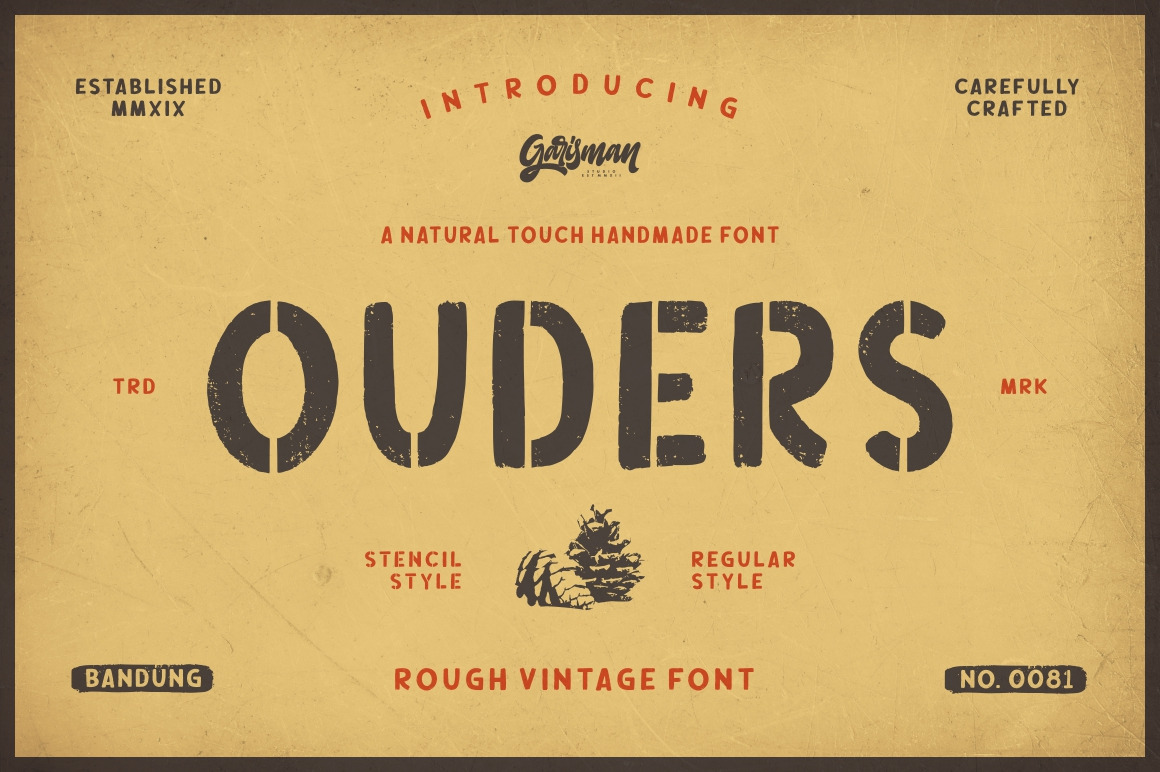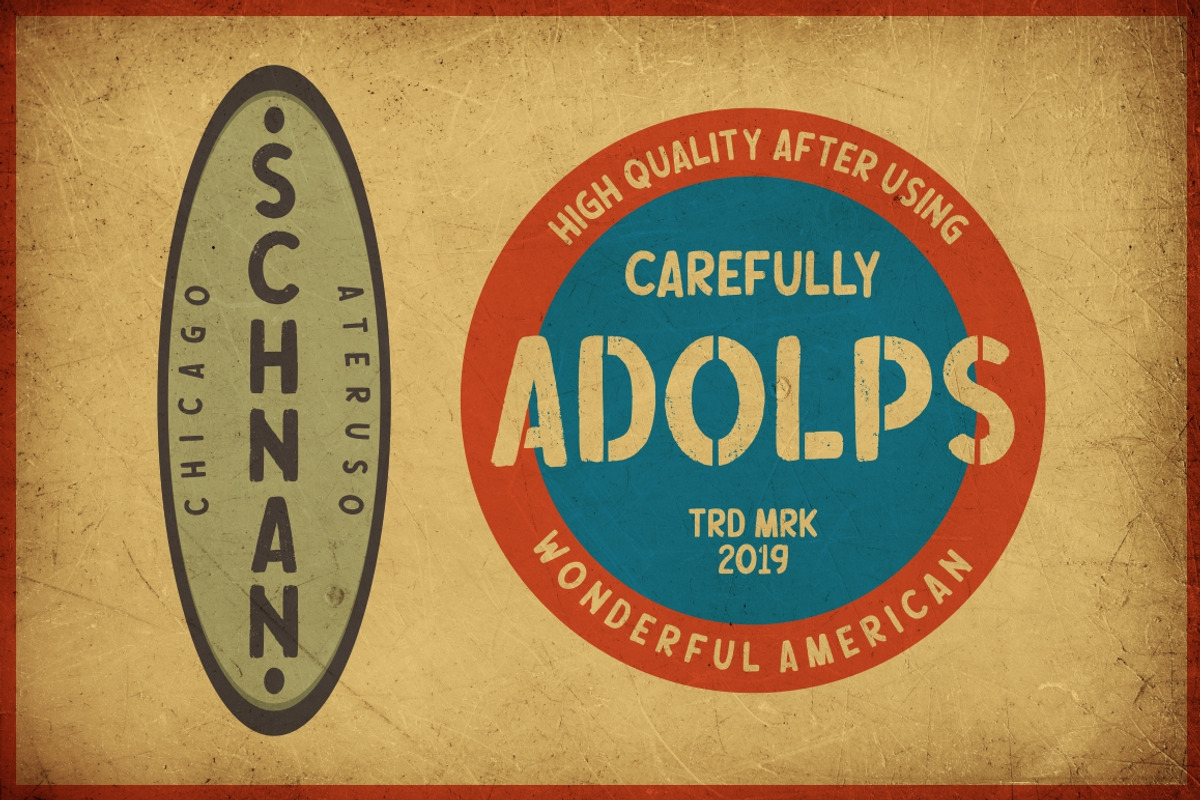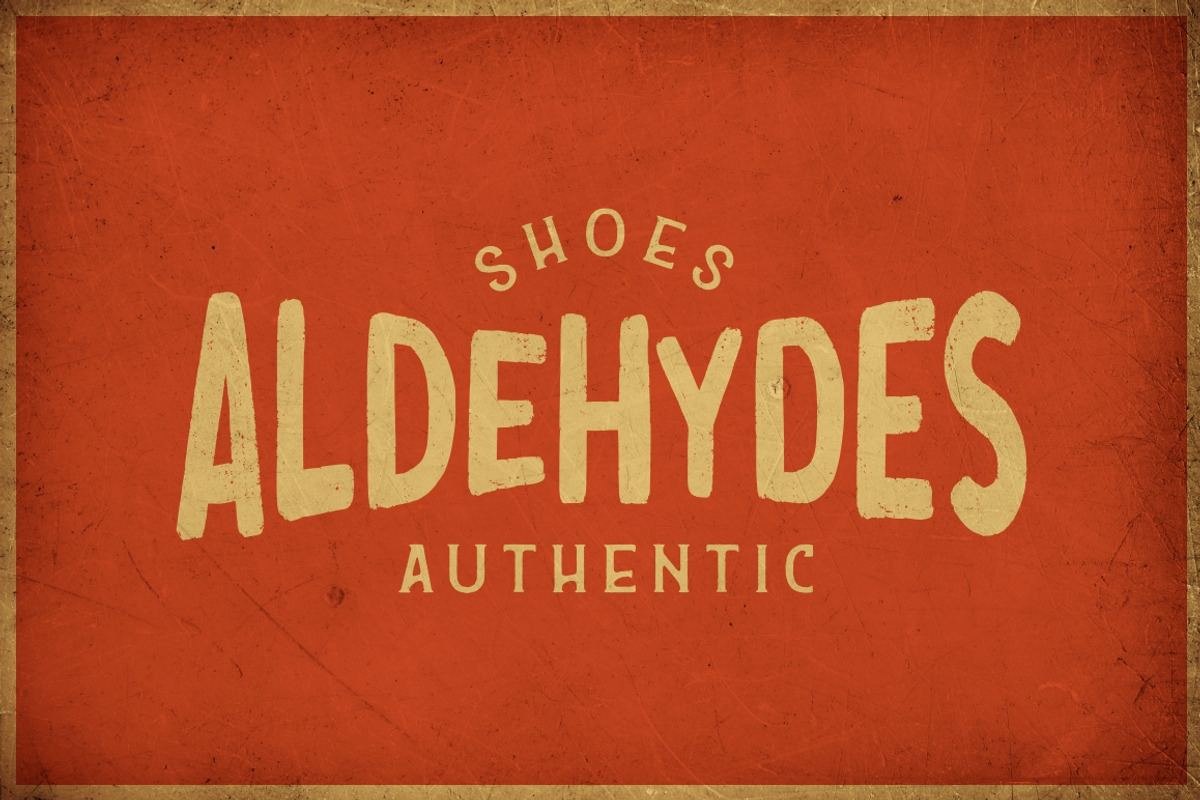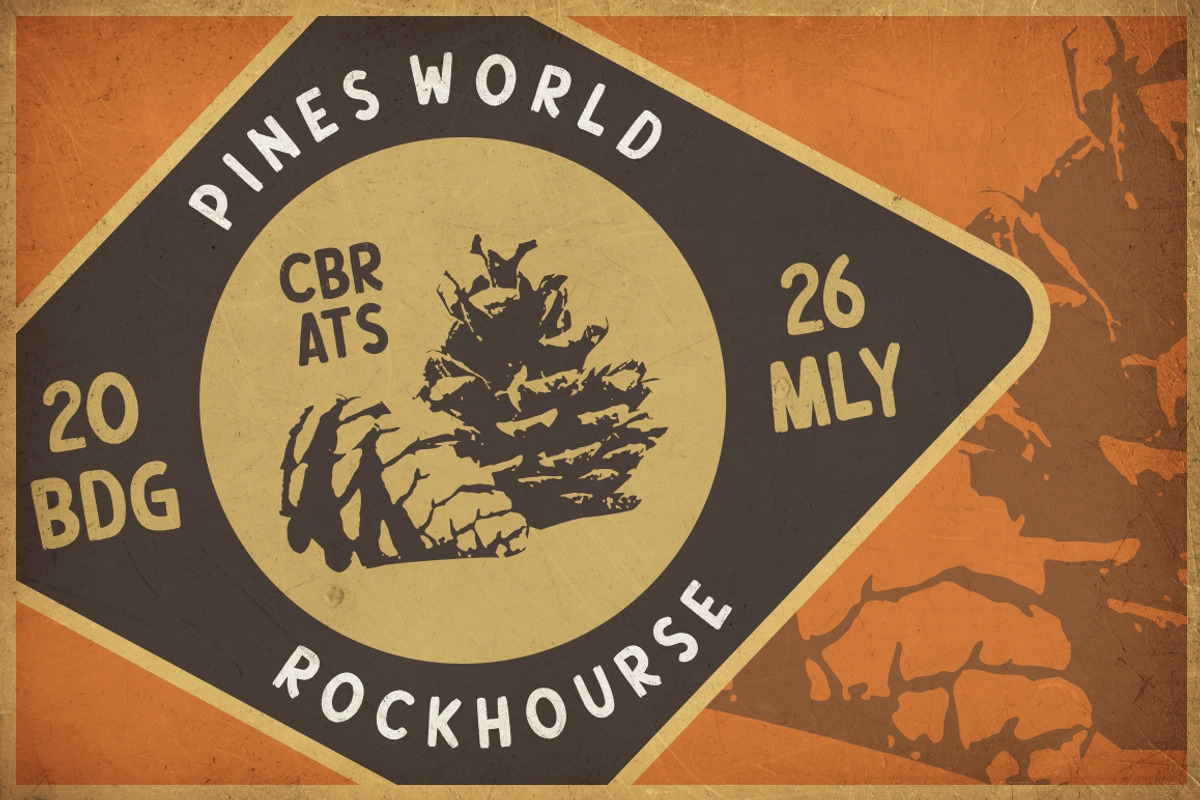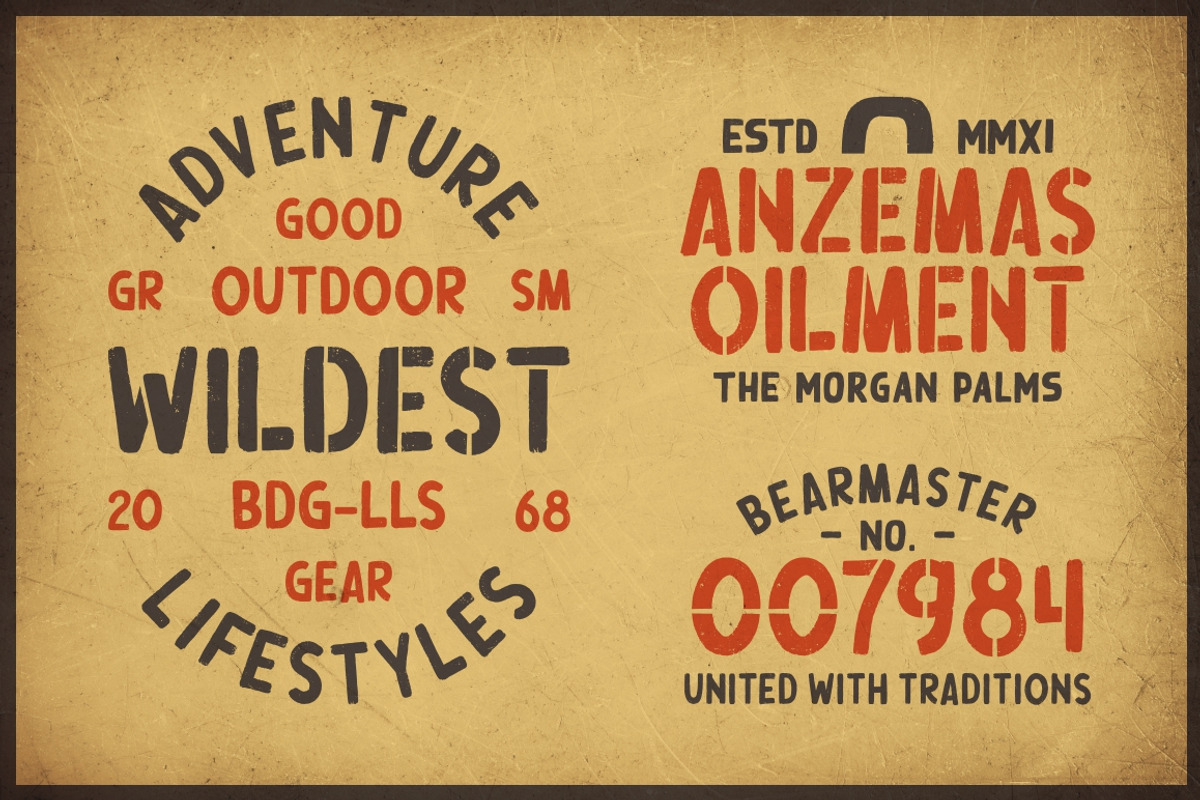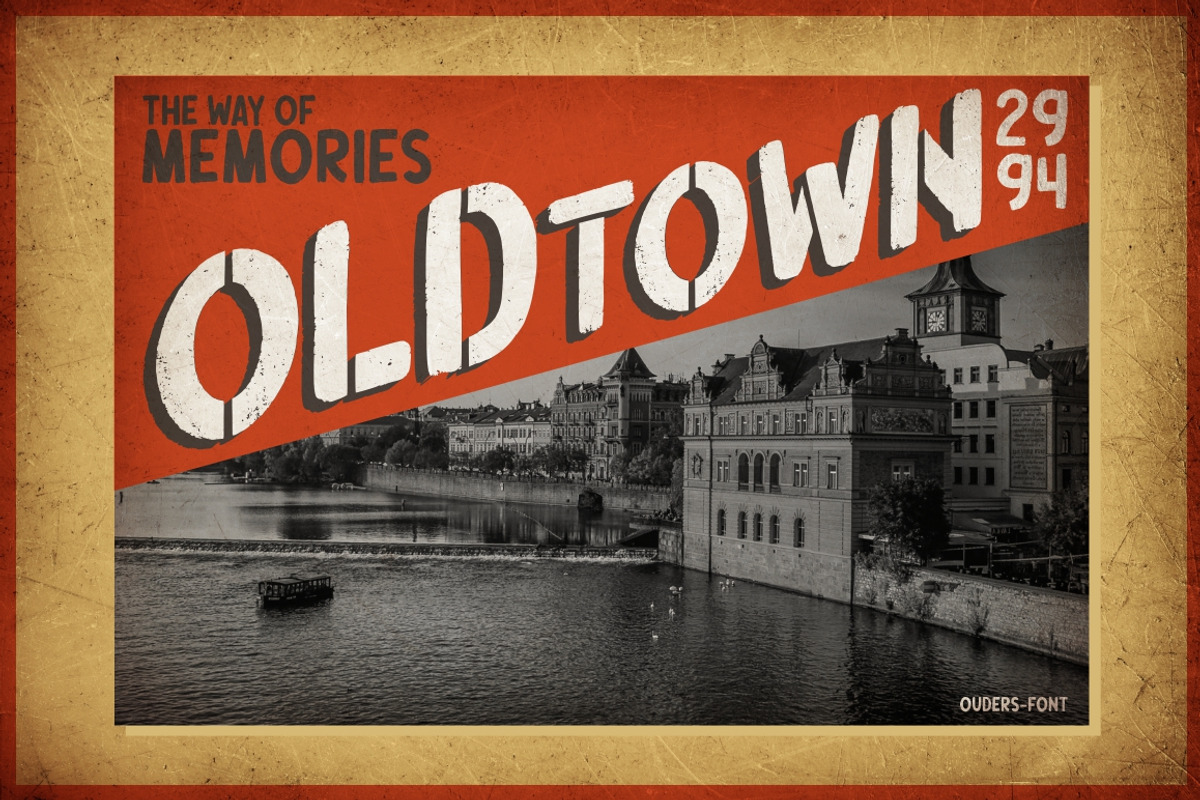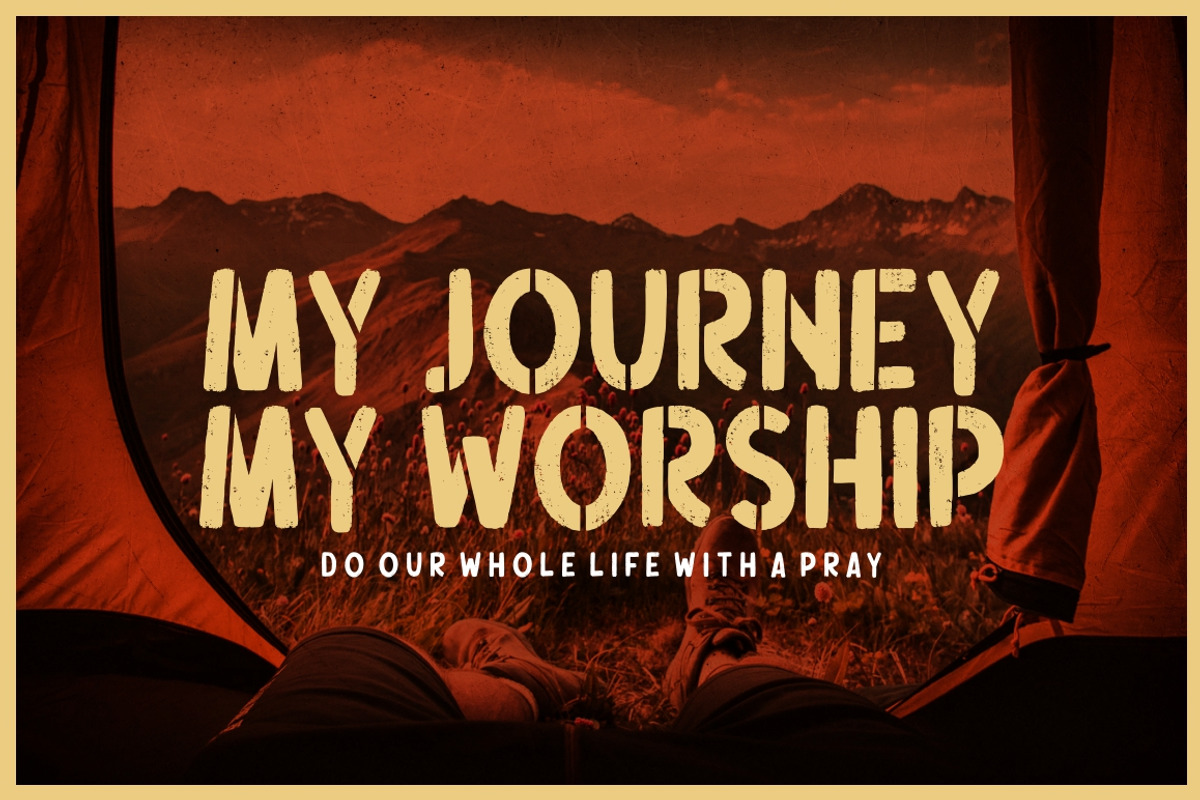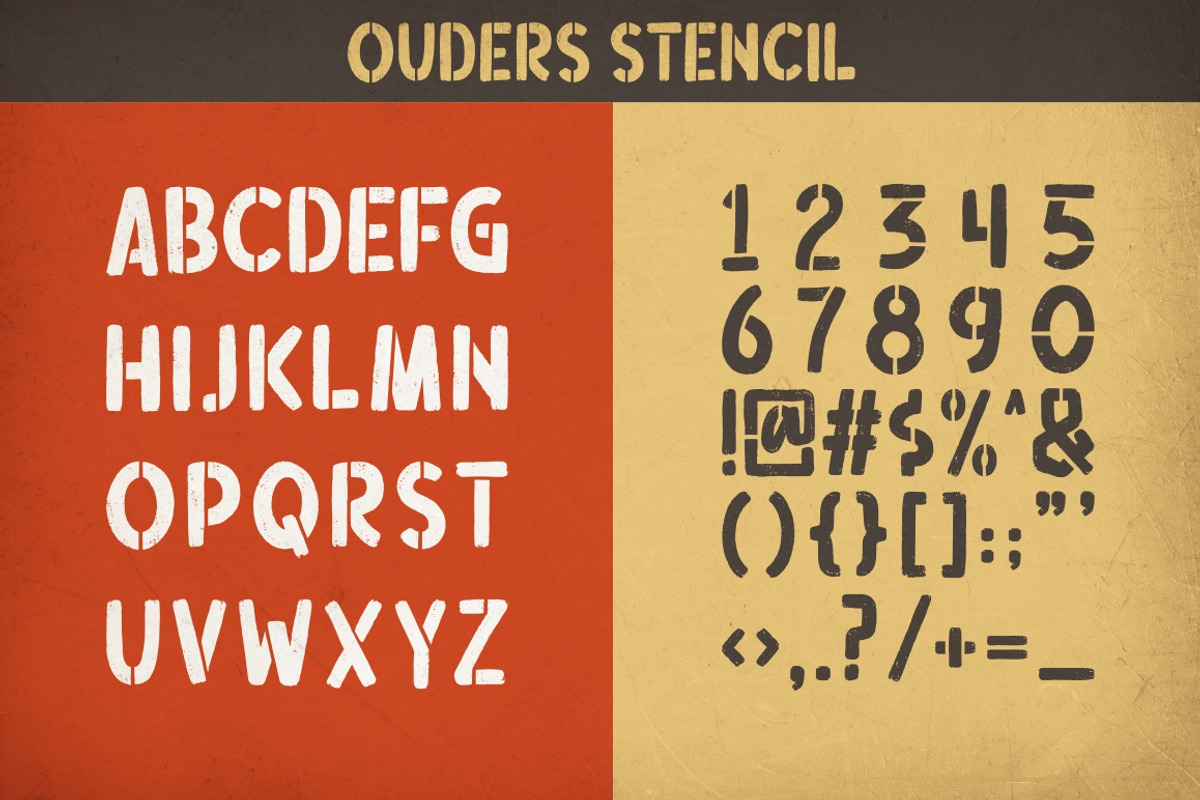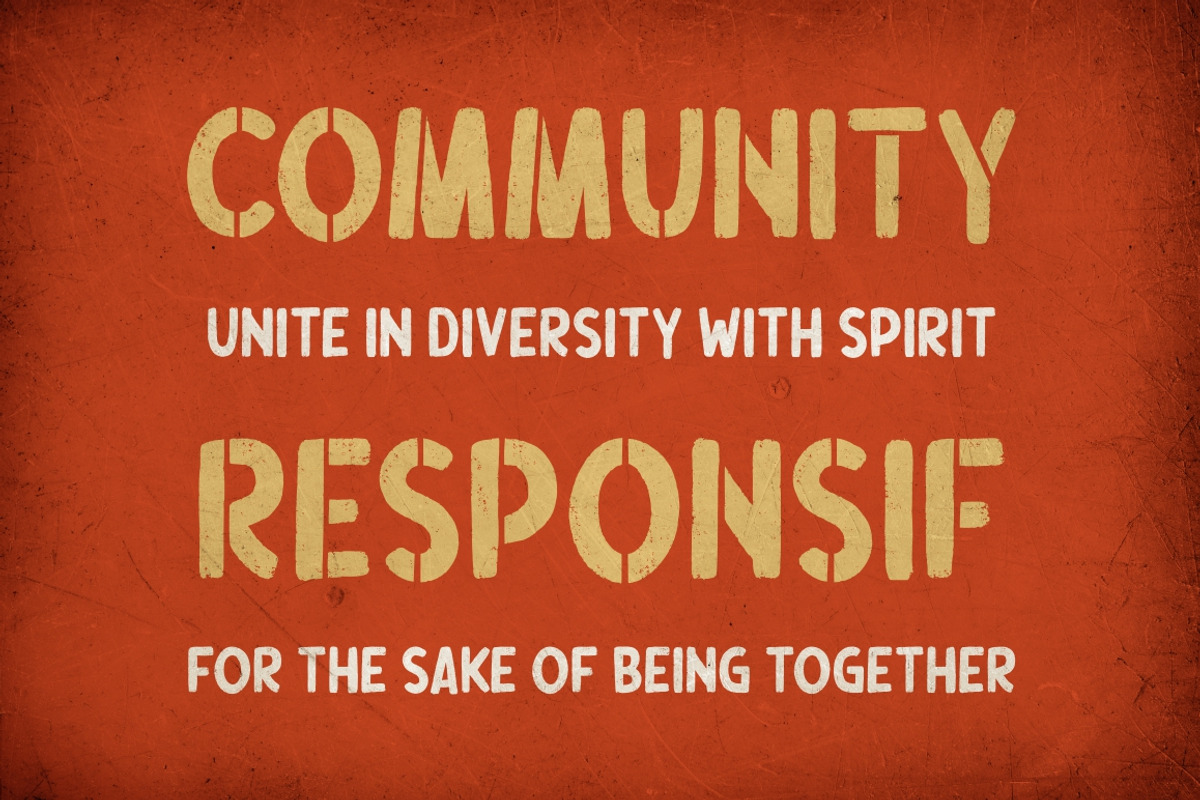
OUDERS - Stencil & Regular Font
Introducing OUDERS - Stencil & Regular Font
OUDERS is born from original and hand-drawn style font. This font gives a feel of a vintage, classic, old, handmade looked like. Already PUA Encoded and I think this font is perfect for people looking for vintage aesthetic or hand-drawn logo. Suitable for any graphic designs such as branding materials, t-shirt, print, business cards, logo, poster, t-shirt, photography, quotes .etc.